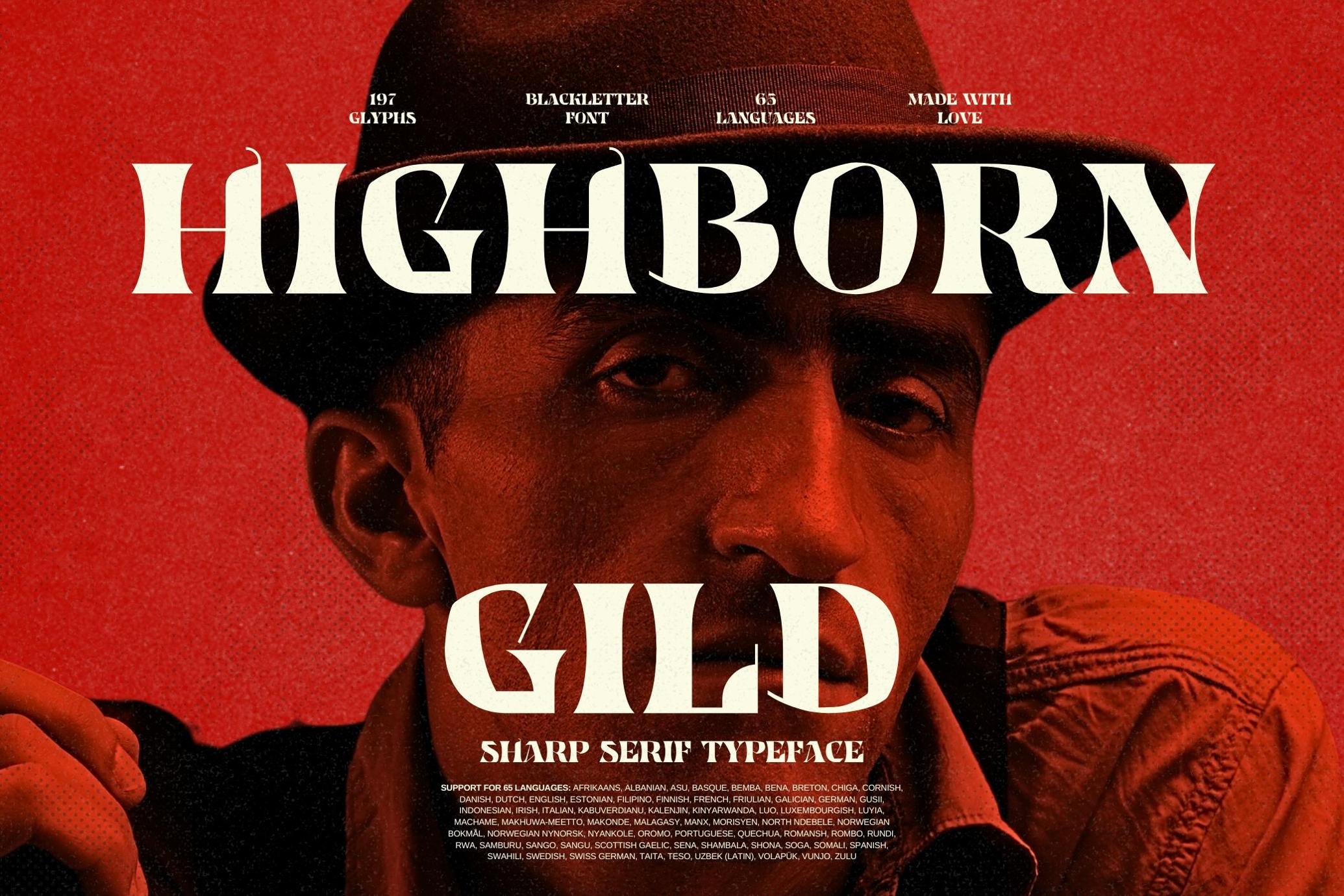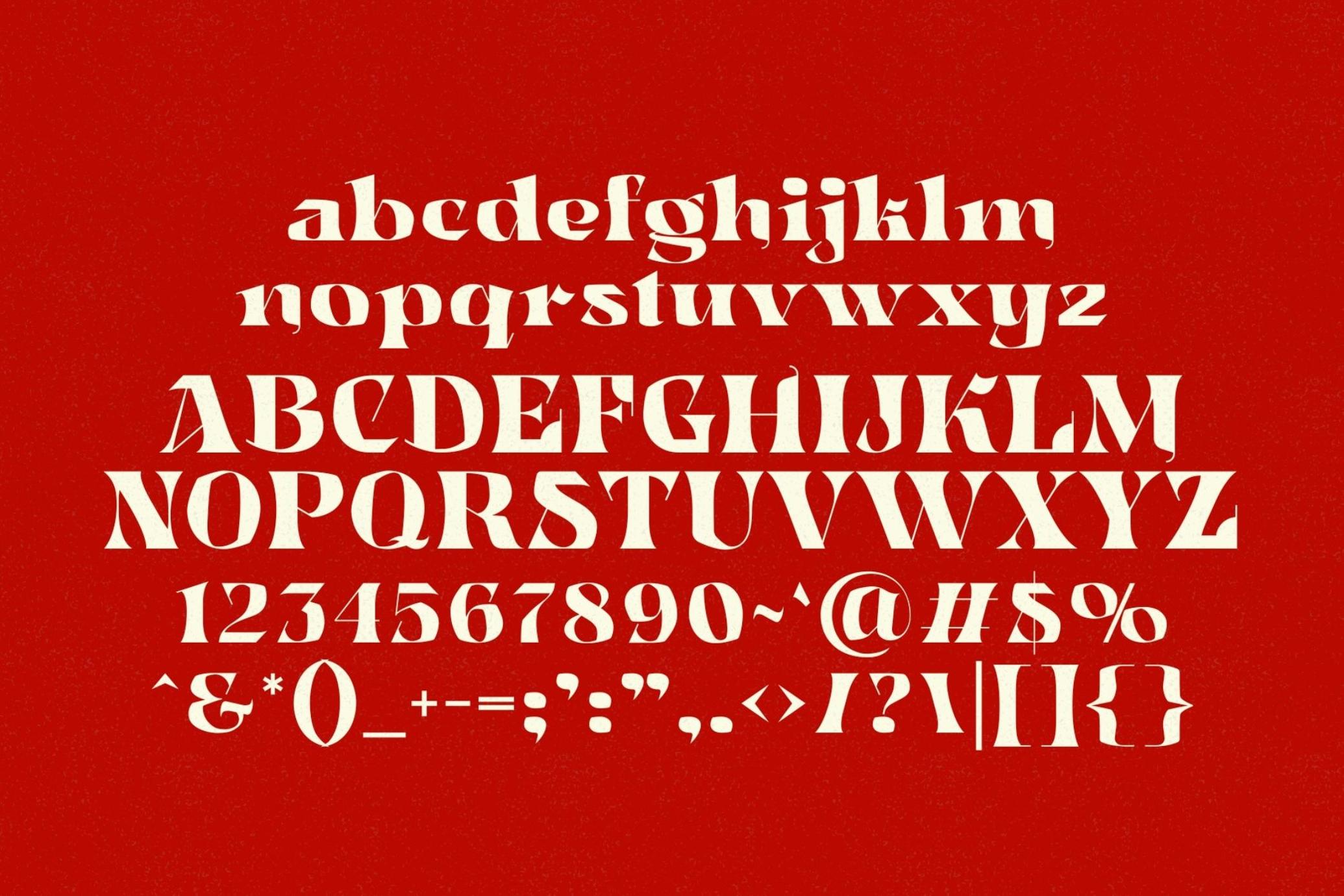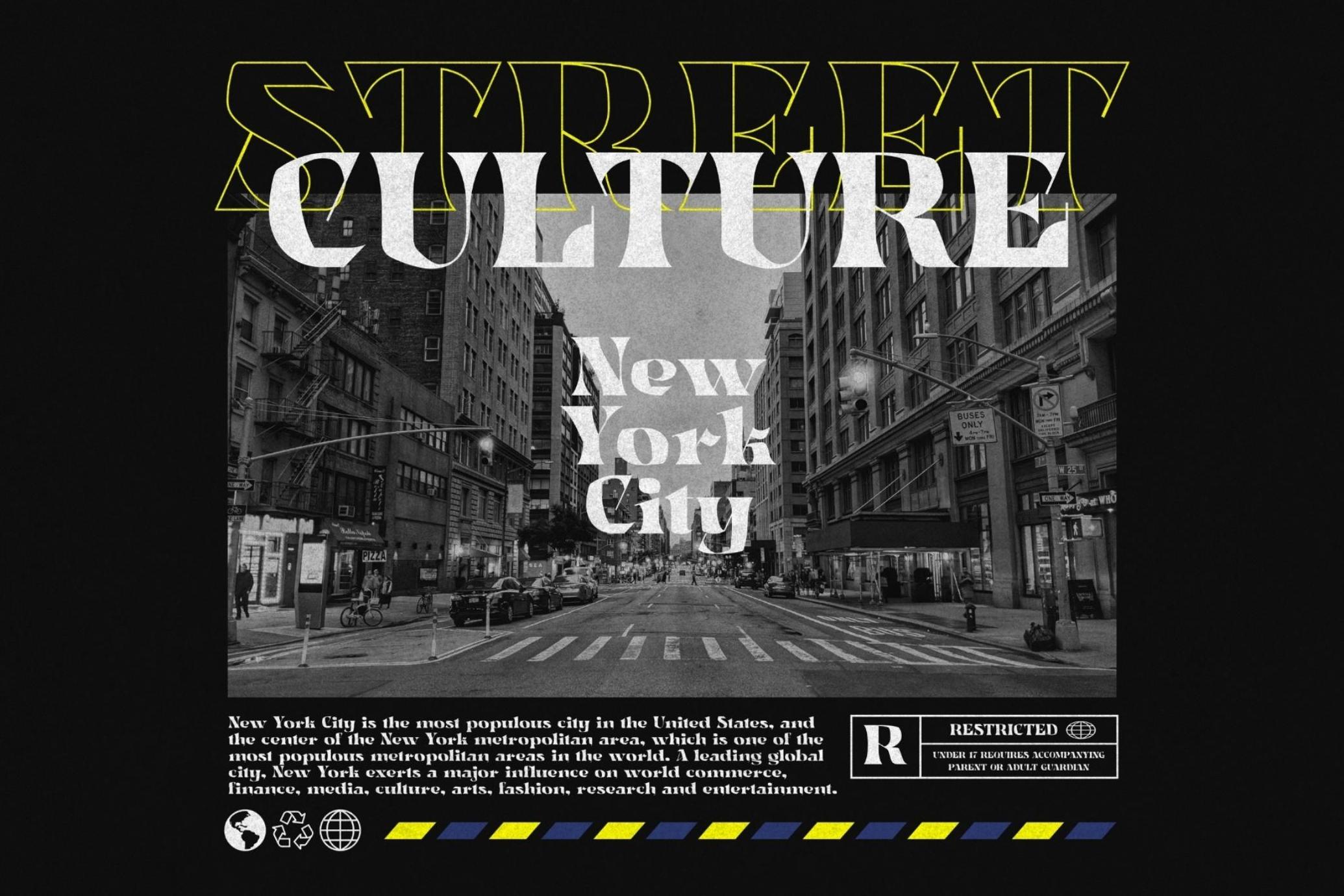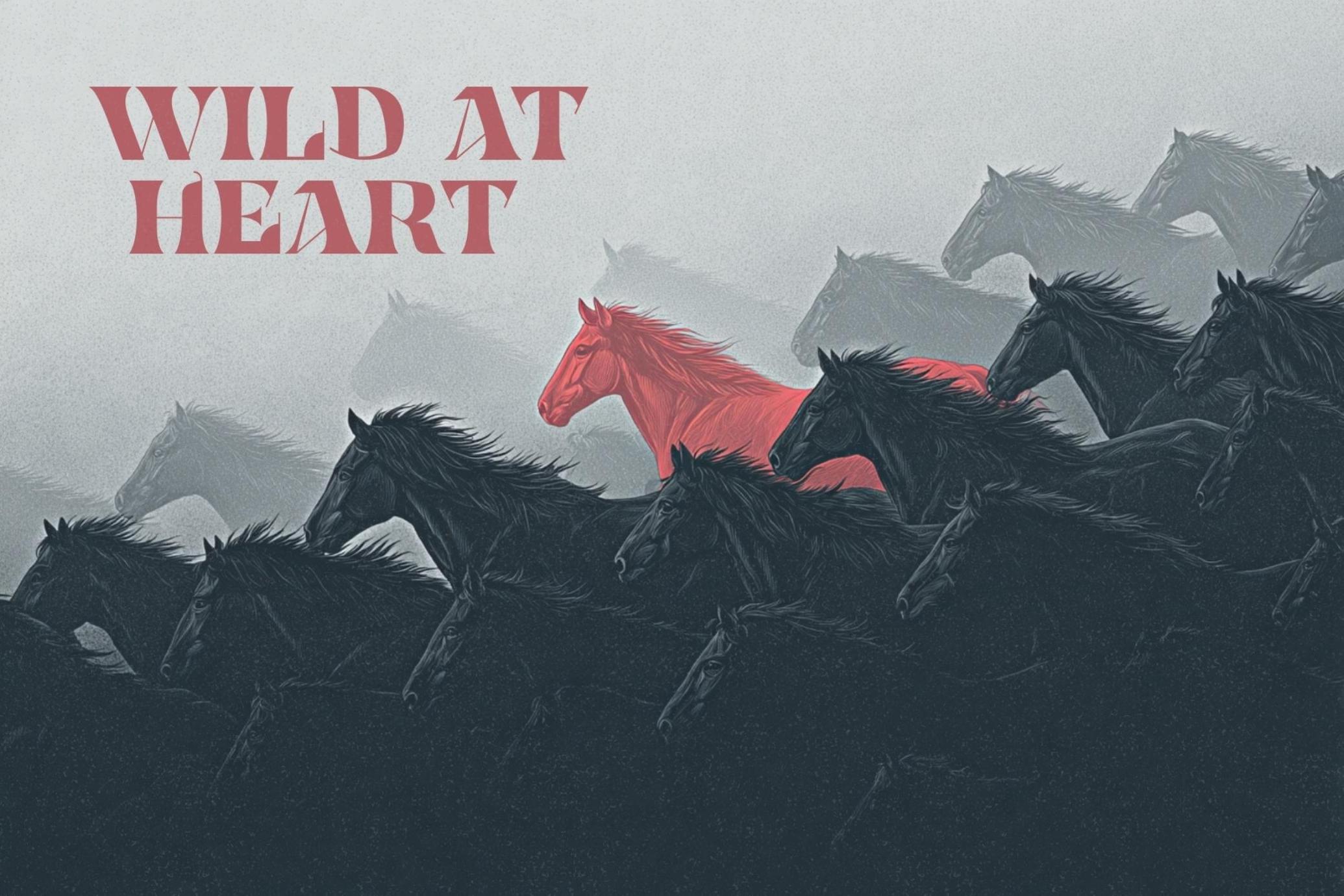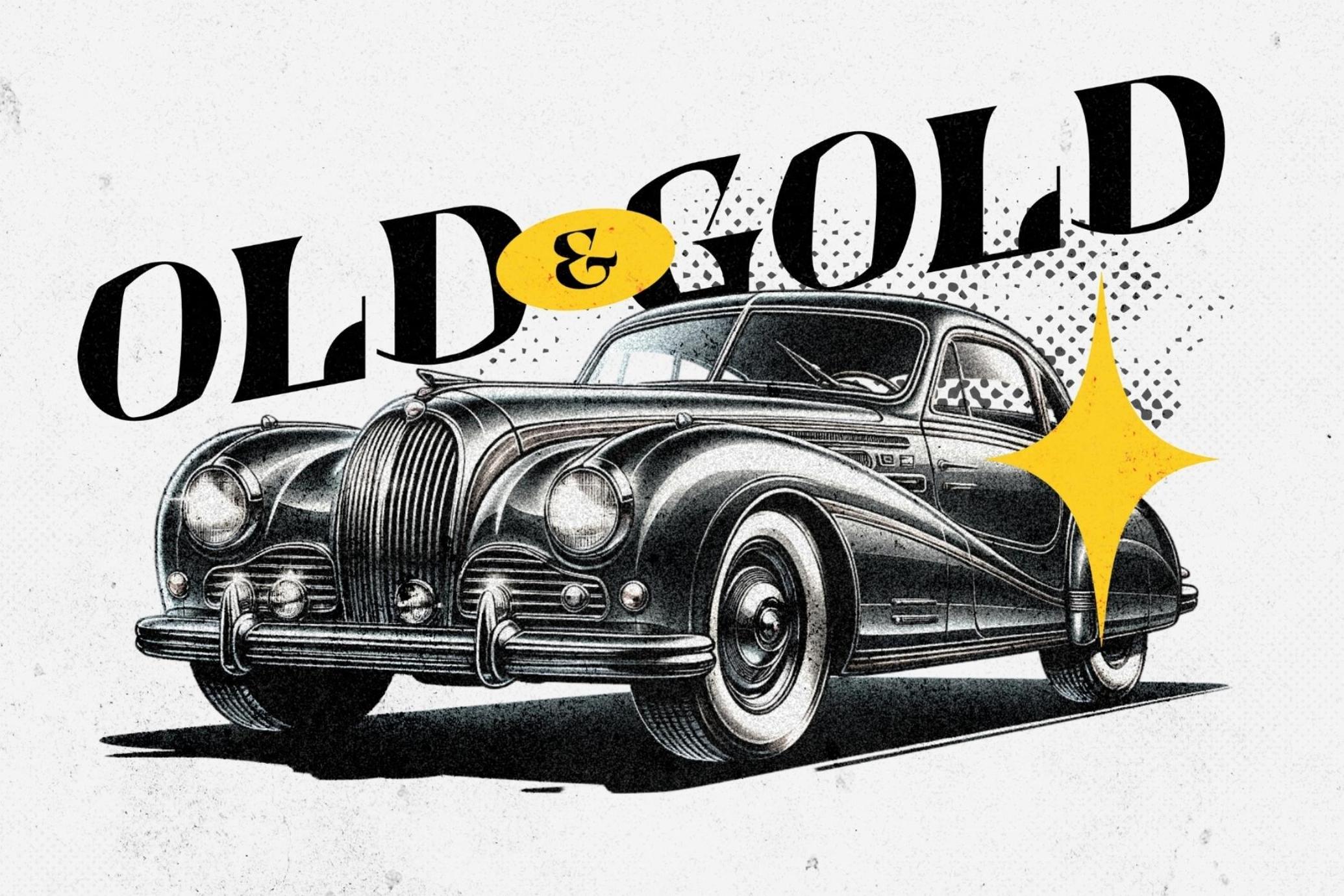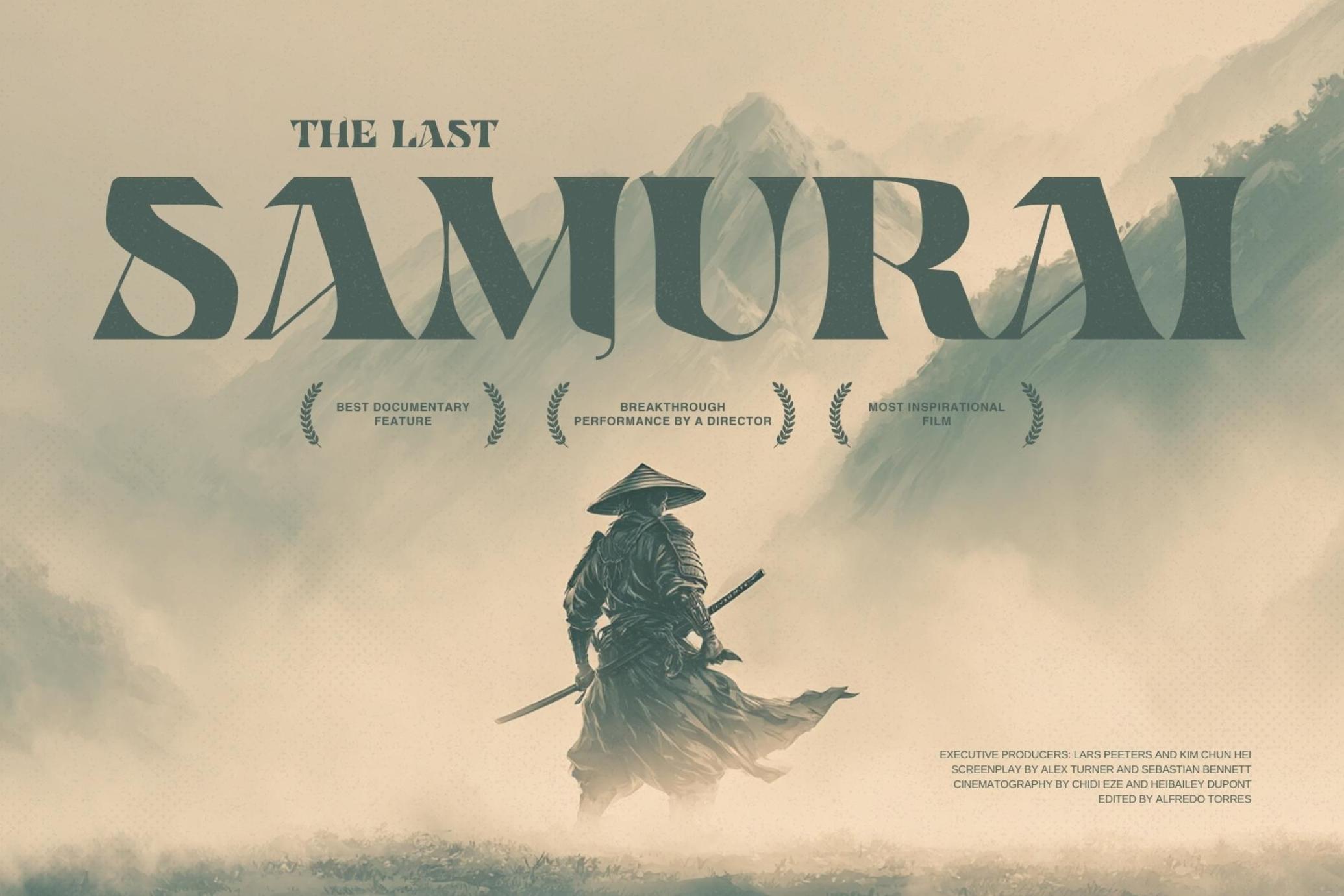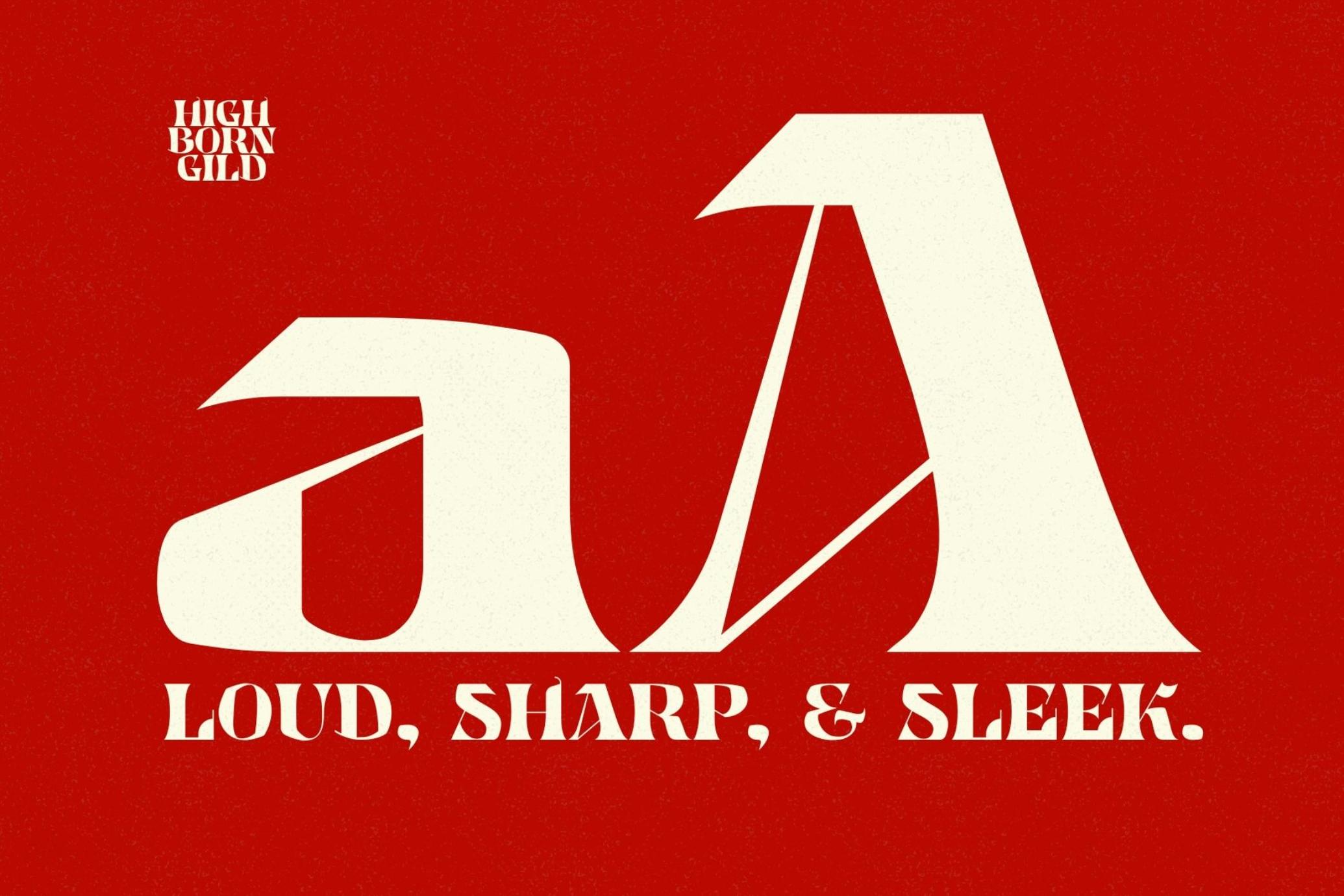
Highborn Gild - Sharp Blackletter
Elevate your designs with Highborn Gild, a commanding serif typeface forged with the precision of a blade and the soul of blackletter tradition. This font exudes aristocratic strength and medieval elegance, combining razor-sharp serifs with the ornate edge of old-world calligraphy. Every letter is sculpted to perfection, radiating power, mystery, and sophistication.
Whether you're designing branding for luxury goods, book covers steeped in legend, gothic editorials, or ceremonial event materials, Highborn Gild delivers drama and class in equal measure. With 197 glyphs and support for 65 languages, it ensures your message reigns across borders.
Step into the world of majestic typography, where tradition meets rebellion, and every word wears a crown.